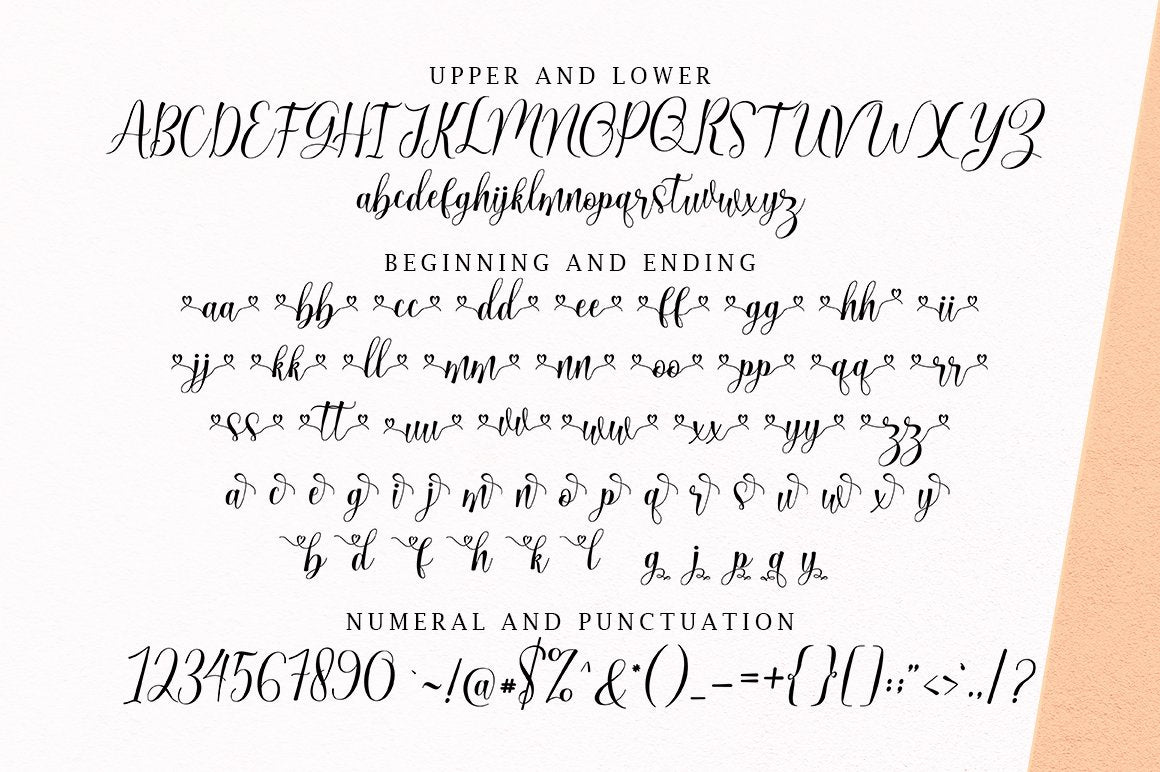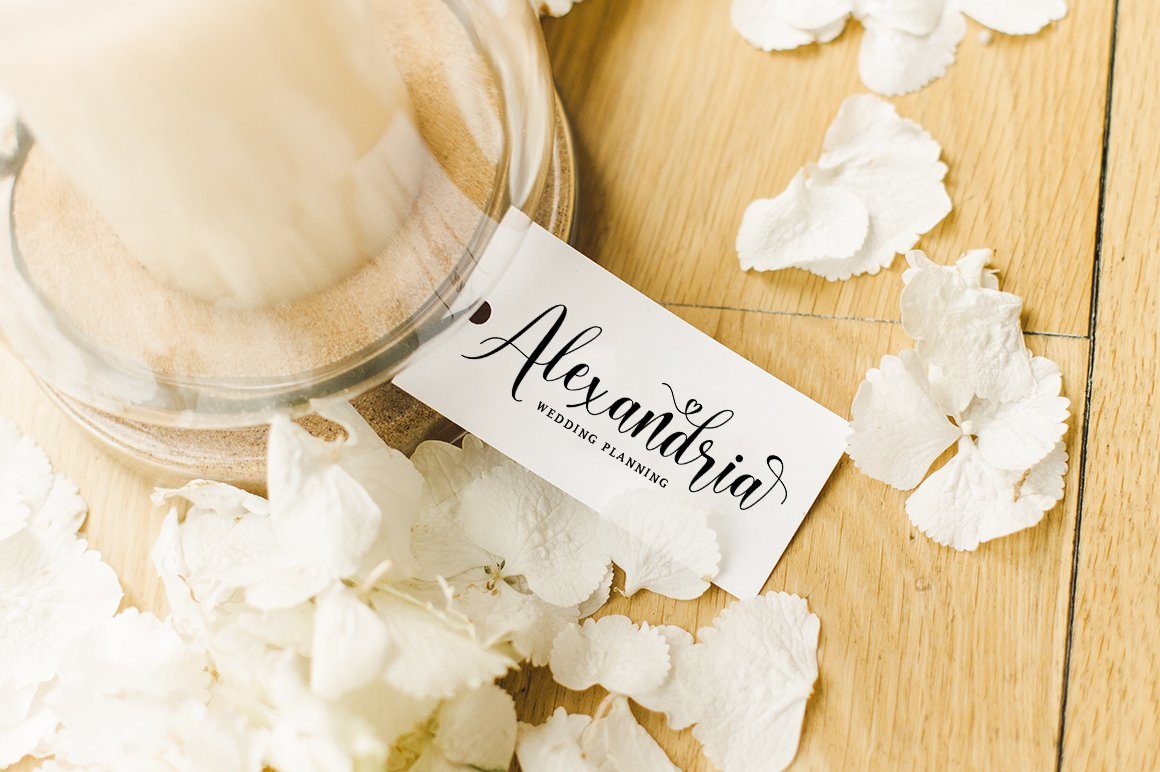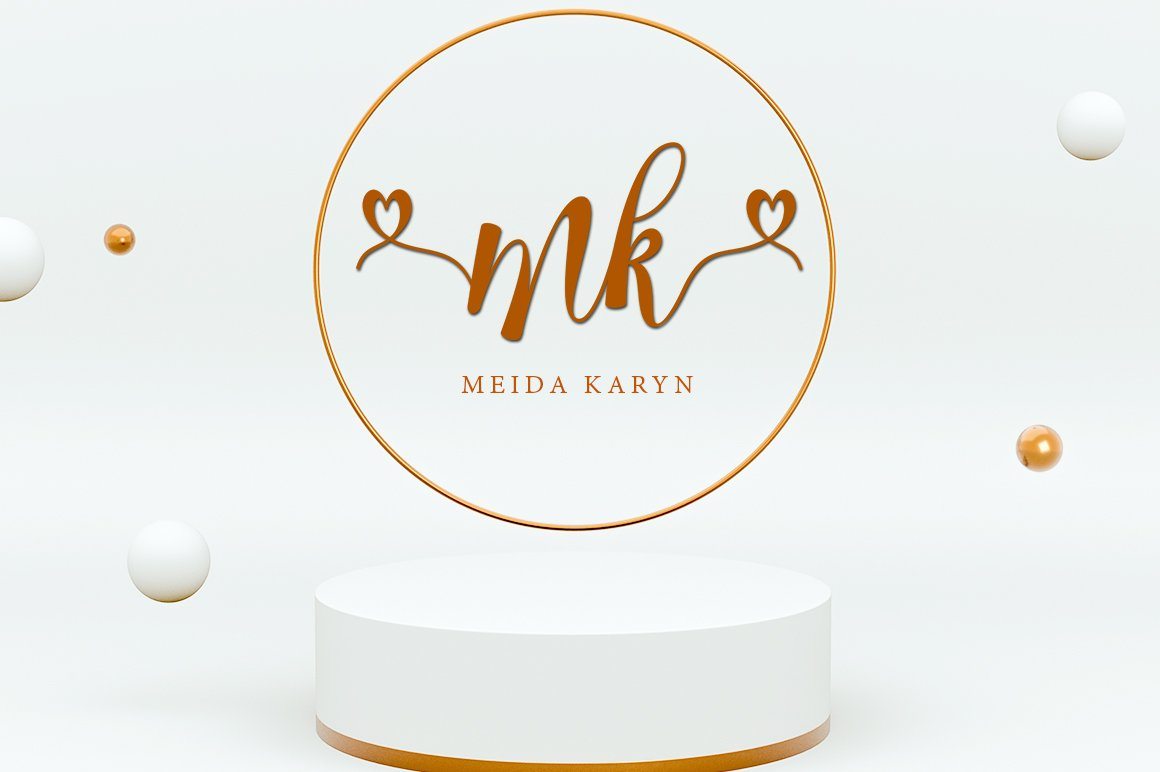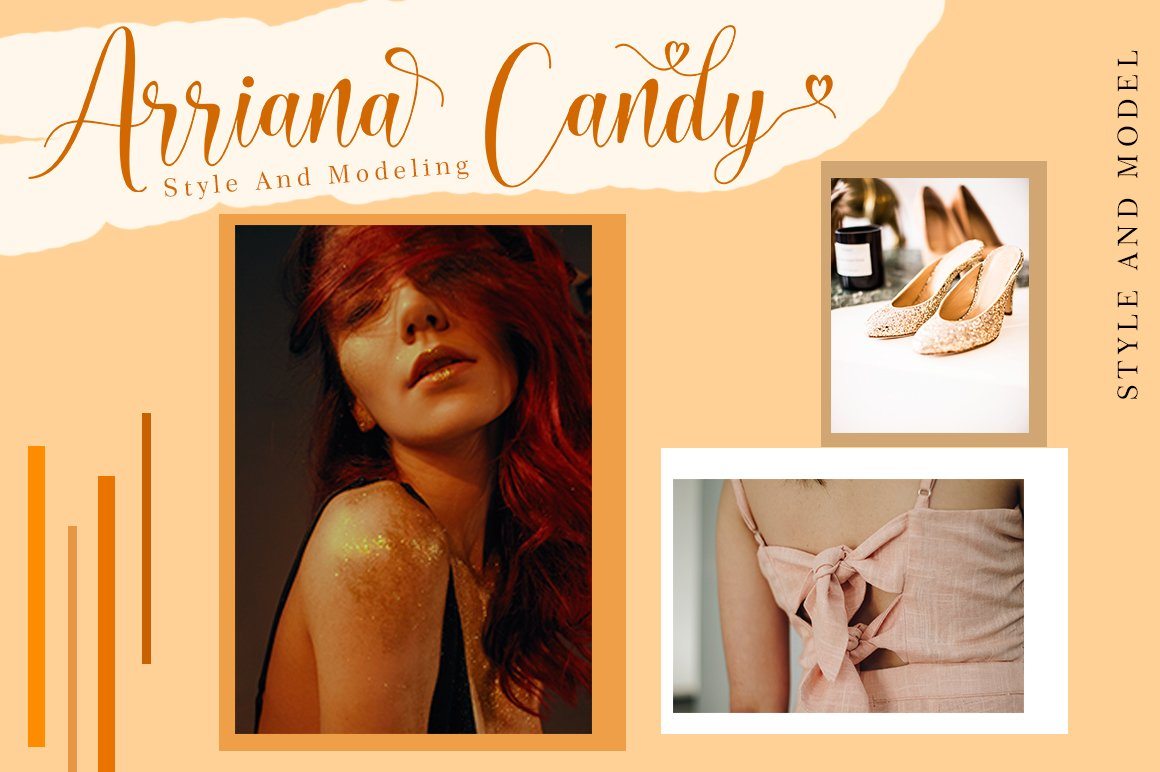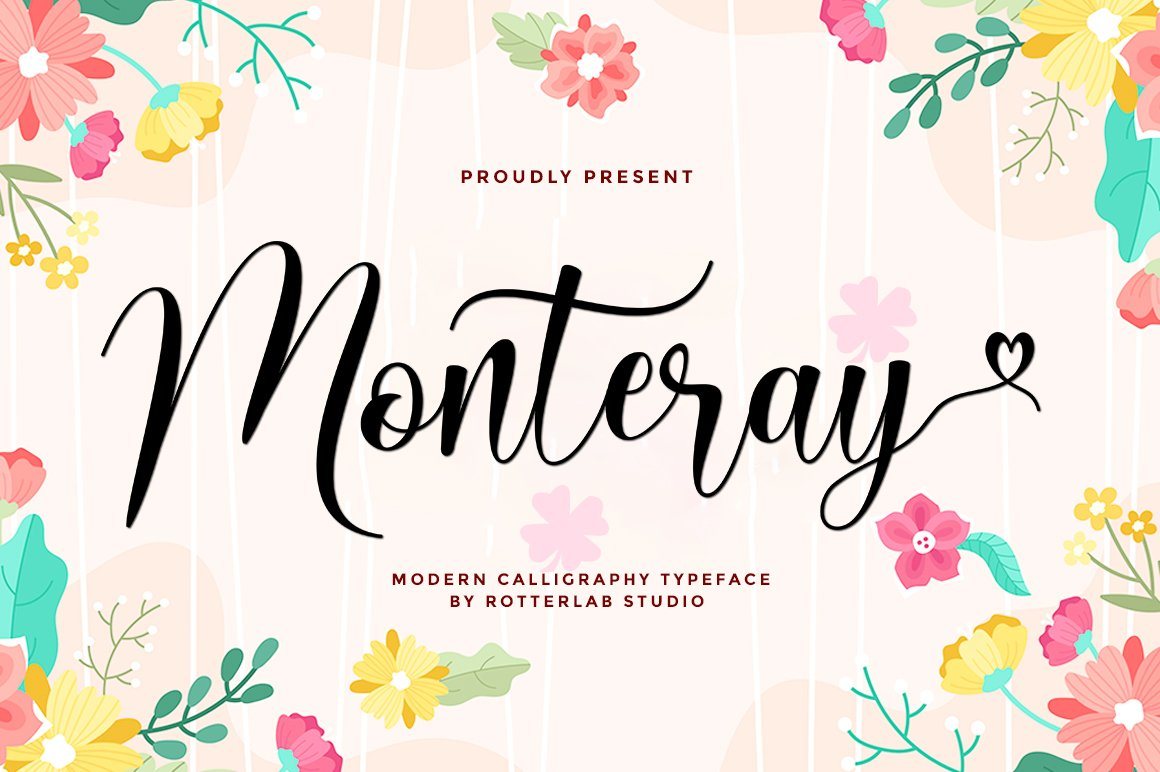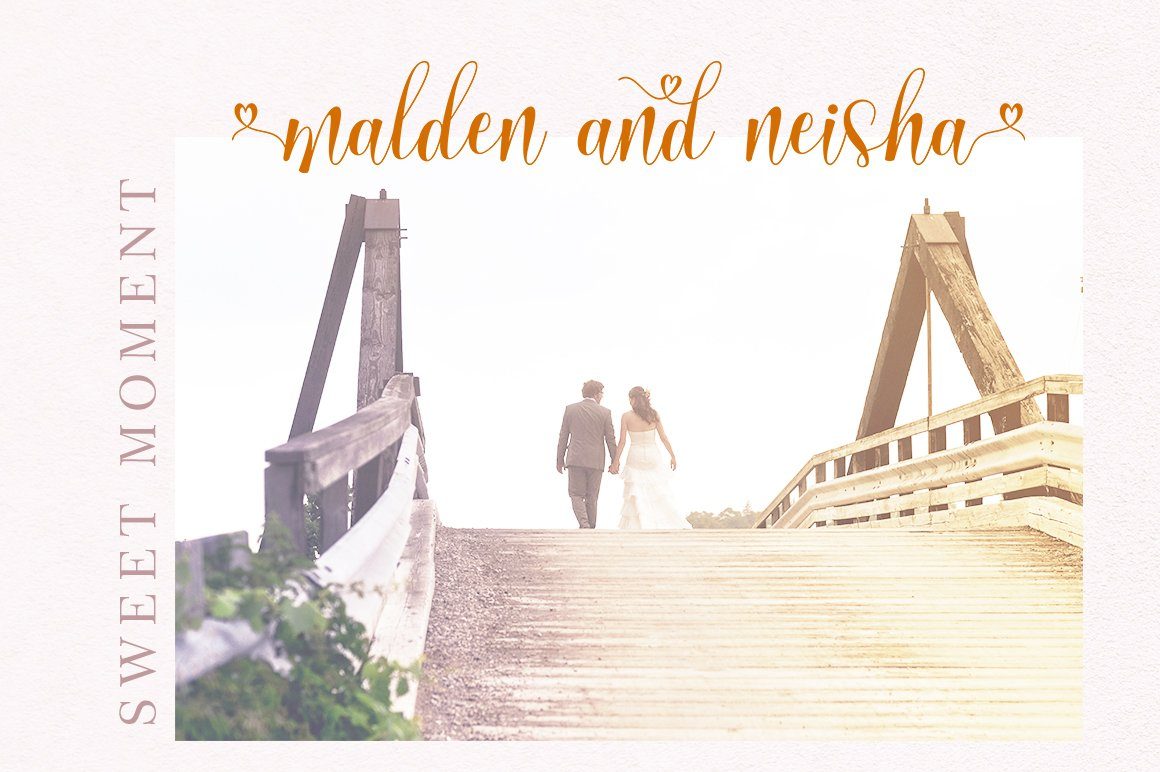
Monteray
About Monteray
Monteray is a beautiful script font with perfectly perfect alternates. This font will exude a romantic and elegant feeling of your design. Monteray can be used for various applications, such as wedding designs, logos, invitations, posters, social media posts, and others. Feature: – Monteray (OTF / TTF) – Lots of Flying Machines – Additional characters encoded by PUA with a love accent – Can be used in any software, such as Adobe Photoshop, Illustrator, even Microsoft Word, PowerPoint, and others. – multilingual glyphs. Thank you